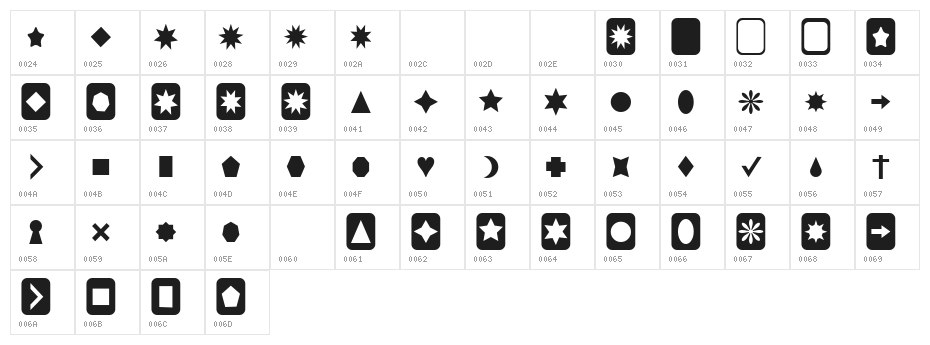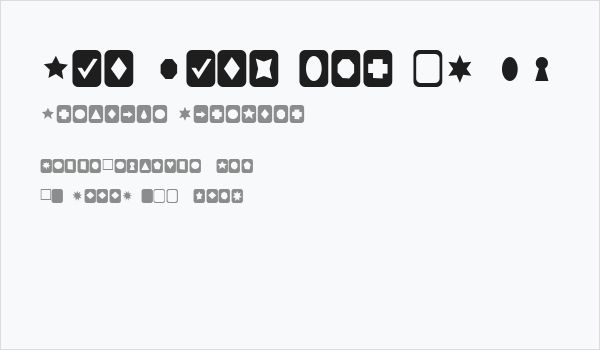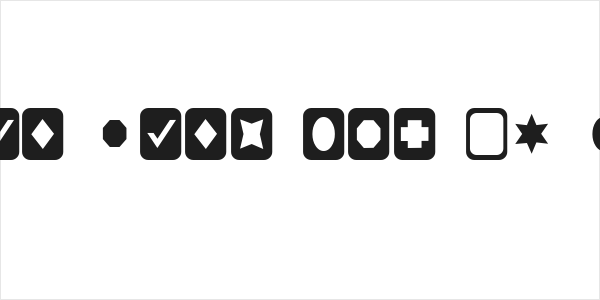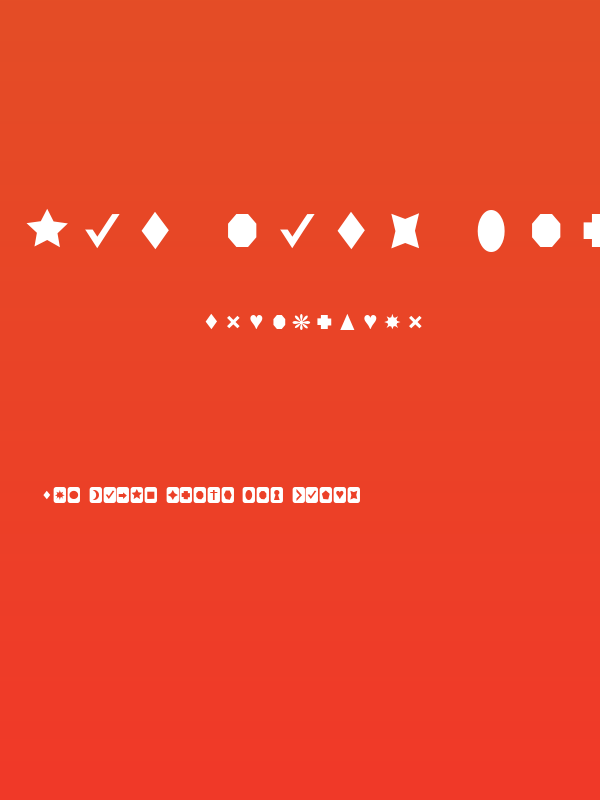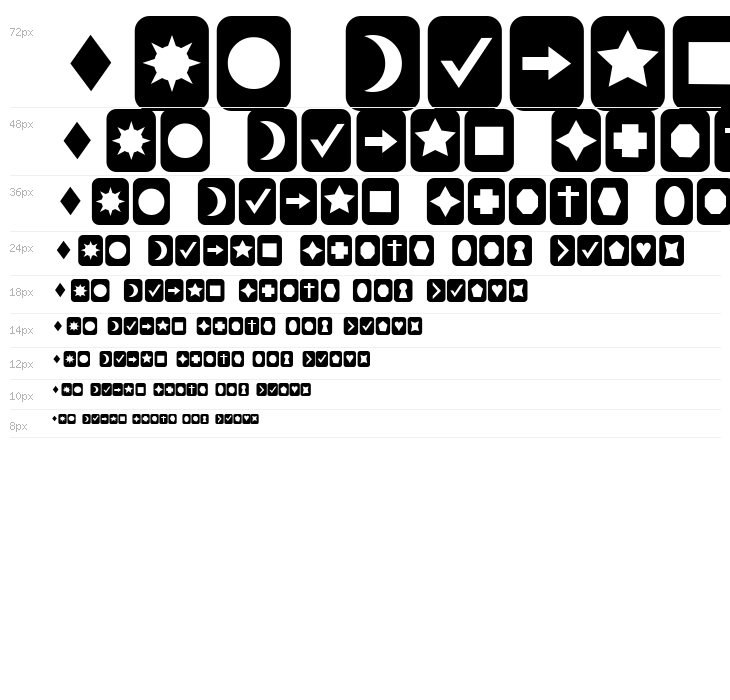
Cut Outs for 3D FX Font
Cut Outs for 3D FX Description
A decorative dingbat font featuring a variety of geometric shapes, stars, arrows, symbols, and icons, many enclosed within rounded or square backgrounds. The glyphs are bold, solid, and highly stylized, designed for visual impact rather than text readability.
| Use Case | Icons, embellishments, visual accents, crafts, and non-textual design elements. |
| Proposed Projects | Stickers, scrapbooking, signage, educational materials, infographics, digital art, and creative crafts. |